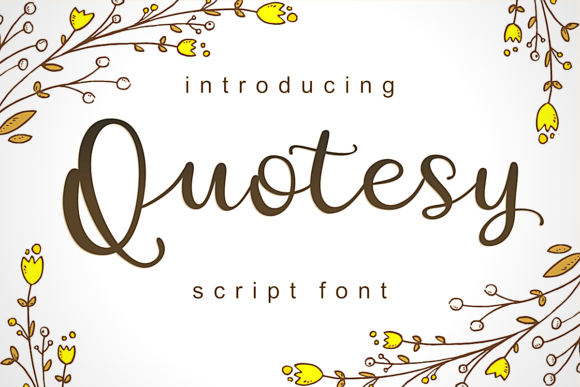
Quotesy Font: Elegant Script for Creative Projects
Introduction to the Quotesy Typeface
Finding a typeface that balances delicate elegance with functional readability is a constant challenge in graphic design. Quotesy is a sophisticated Script Handwritten font that solves this problem through its flowing, organic letterforms and impeccable balance. Whether you are searching for a Quotesy free download for a personal passion project or evaluating it for a client brief, this typeface offers a unique aesthetic that stands apart from generic scripts. Its characters are meticulously crafted to mimic natural handwriting while maintaining the structural integrity required for professional layouts. Unlike many fonts in this category that sacrifice legibility for style, Quotesy ensures that every swash and curve serves a purpose, making it an exceptional choice for designers who demand both beauty and utility.
Design Characteristics and Visual Style
The visual personality of Quotesy is defined by its gentle contrast and rhythmic flow. It avoids the rigid geometry of digital-first scripts, instead embracing the subtle imperfections that give handwritten typography its warmth. When comparing Quotesy vs similar font options like Great Vibes or Allura, Quotesy distinguishes itself through superior spacing and more refined terminal endings. This attention to detail prevents the text from looking cluttered, even when used at larger display sizes.
Letterform Anatomy and Weight
The stroke weight in Quotesy is moderately thin, contributing to its airy and luxurious feel. The ascenders and descenders are generous without being overwhelming, creating a vertical rhythm that guides the eye across the page. This makes it a premium Script Handwritten font suitable for high-end editorial work where negative space is just as important as the ink itself.
Spacing and Kerning Balance
One of the most critical aspects of any script typeface is how the letters connect. Quotesy features well-balanced characters that link naturally, reducing the need for manual kerning adjustments. This fluid connectivity is essential for maintaining the illusion of continuous handwriting, particularly when setting longer phrases or quotes.
Best Uses for Quotesy in Design
Versatility is the hallmark of a truly useful typeface. While some scripts are limited to specific niches, Quotesy adapts beautifully across various mediums. Below are the primary applications where this font excels.
Quotesy for Wedding Invitations and Stationery
The romantic and delicate nature of Quotesy makes it an industry standard for matrimonial design. It is arguably one of the best Script Handwritten fonts for wedding invitations/cards/typography because it conveys intimacy and tradition without feeling dated. Use it for the couple’s names on the invitation suite, place cards, and welcome signs to create a cohesive, elegant theme.
Quotesy for Branding and Logo Design
When establishing a brand identity for boutique businesses, spas, or artisanal products, typography sets the tone. Quotesy for logo design works exceptionally well because its distinct character shapes provide instant recognition. It suggests craftsmanship and personal care, making it ideal for brands that want to communicate authenticity rather than corporate sterility.
Quotesy for Social Media and Packaging
In the fast-paced world of digital content and retail shelves, readability is paramount. Quotesy for posters/social media/packaging provides the necessary flair to stop the scroll or catch the shopper's eye while remaining legible at smaller sizes. Whether used for Instagram story overlays or product labels, it adds a human touch that enhances engagement and perceived value.
Font Pairing Strategies and Combinations
A script font never exists in isolation; it relies on supporting typefaces to create hierarchy and contrast. Understanding what fonts pair well with Quotesy is essential for creating polished, professional layouts. The goal is to let Quotesy shine as the display element while ensuring body text remains accessible.
Classic Serif Pairings
For a timeless, editorial look, combine Quotesy with a traditional serif like Playfair Display or Merriweather. The structured serifs ground the flowing script, creating a sophisticated tension that is perfect for luxury branding and formal invitations. This combination reinforces the professional Fonts font aesthetic required for high-stakes projects.
Clean Sans-Serif Combinations
If your design requires a modern, minimalist vibe, pair Quotesy with a geometric sans-serif such as Montserrat or Lato. The clean lines of the sans-serif provide a neutral backdrop that allows the intricate details of the script to take center stage. This is often the best font combinations with Quotesy for web headers and contemporary packaging where clarity is key.
Always test your design in black and white before applying color. If Quotesy holds up without the aid of hue or texture, your layout is structurally sound. Additionally, consider the medium of reproduction; fine hairlines may disappear on low-quality paper or uncoated stock, so adjust the weight or size accordingly. By respecting these technical constraints, you ensure that Quotesy delivers its intended elegance across every application, from digital screens to printed ephemera.